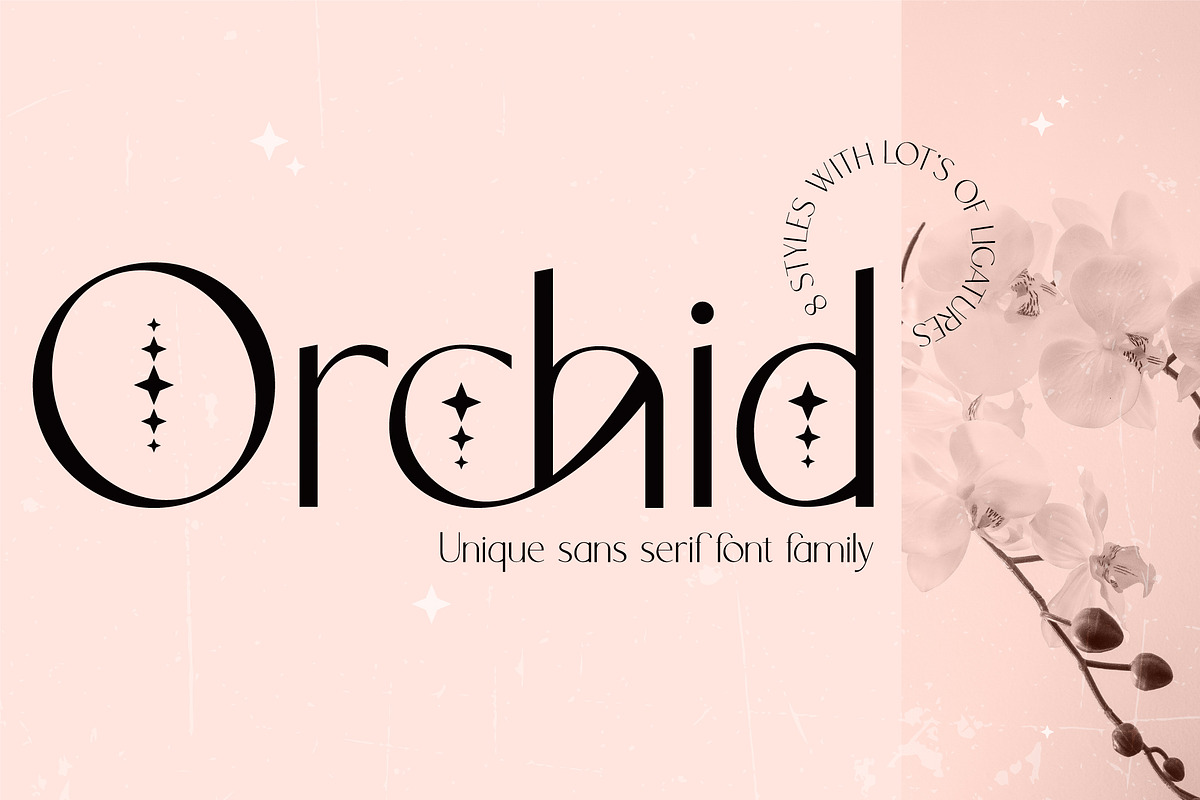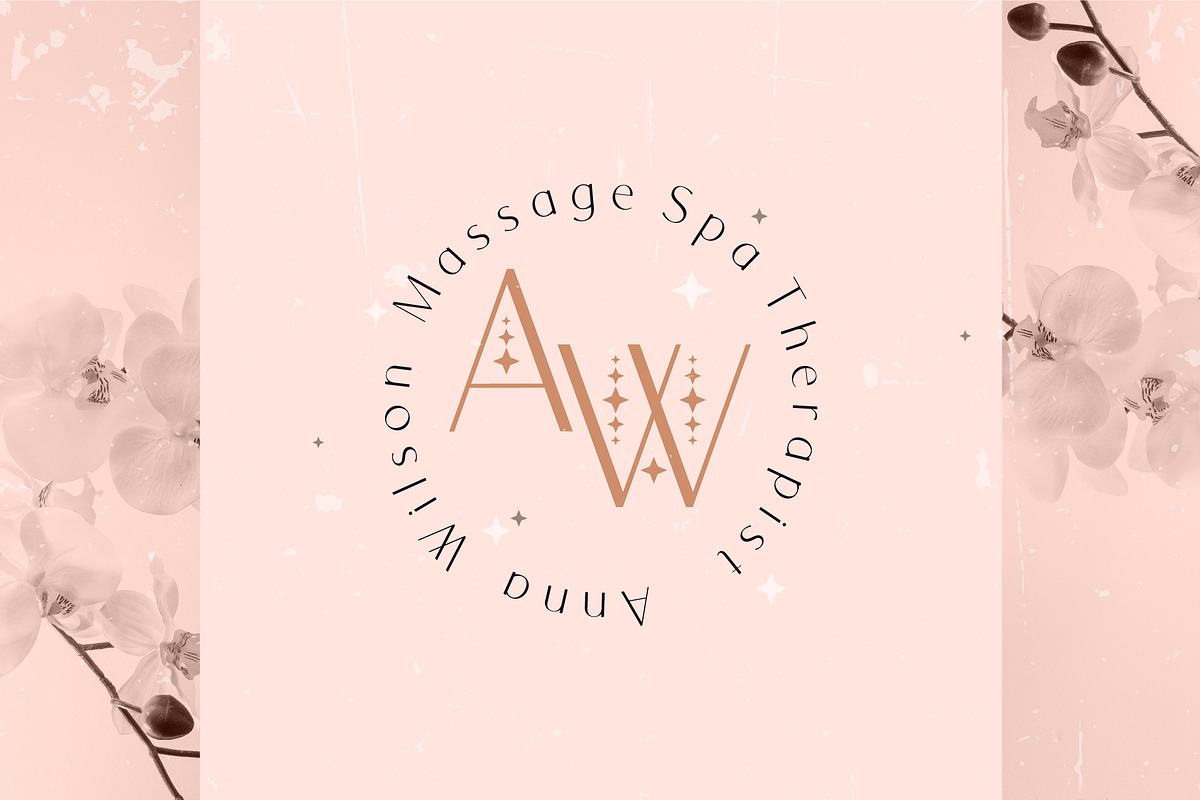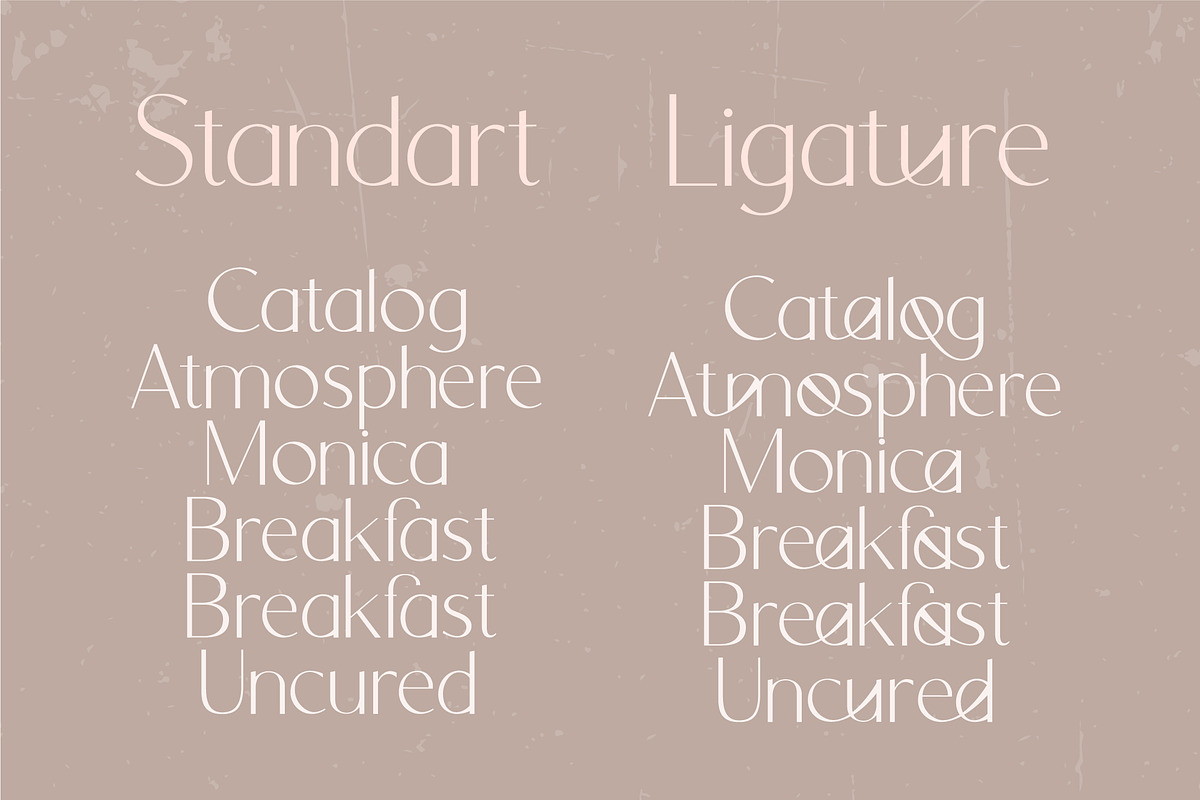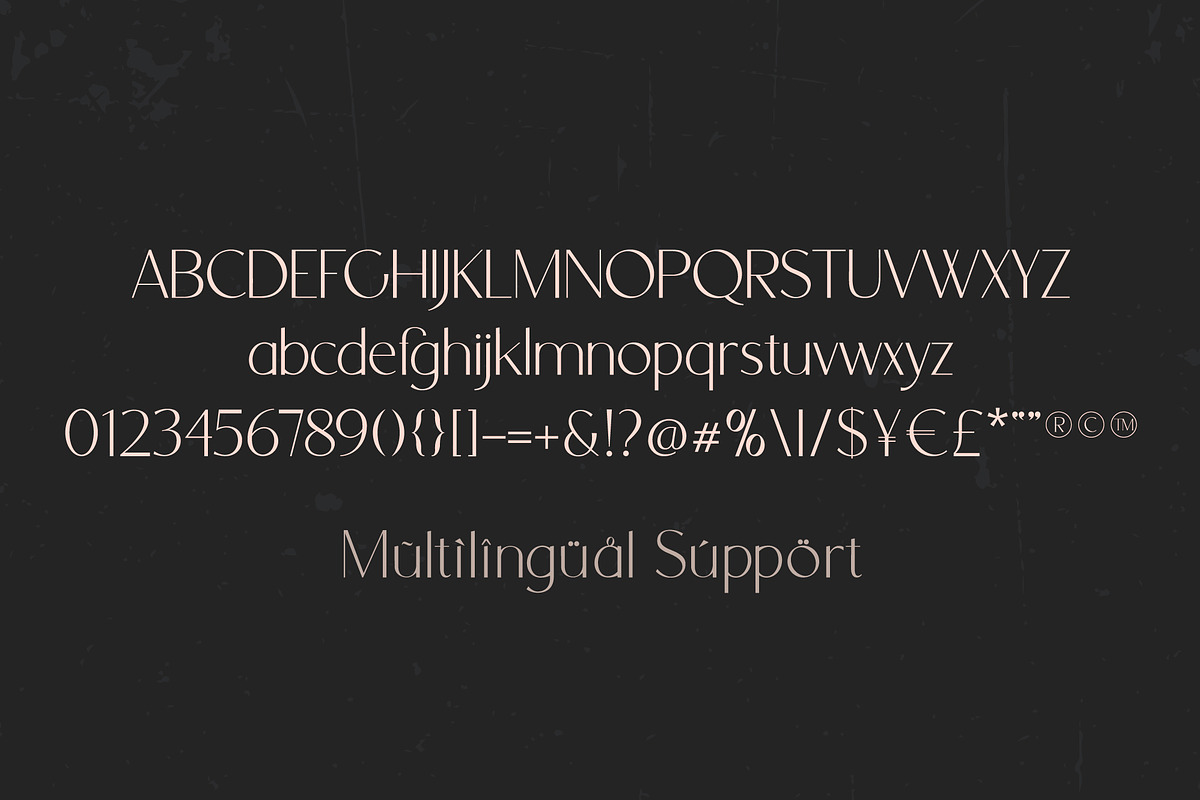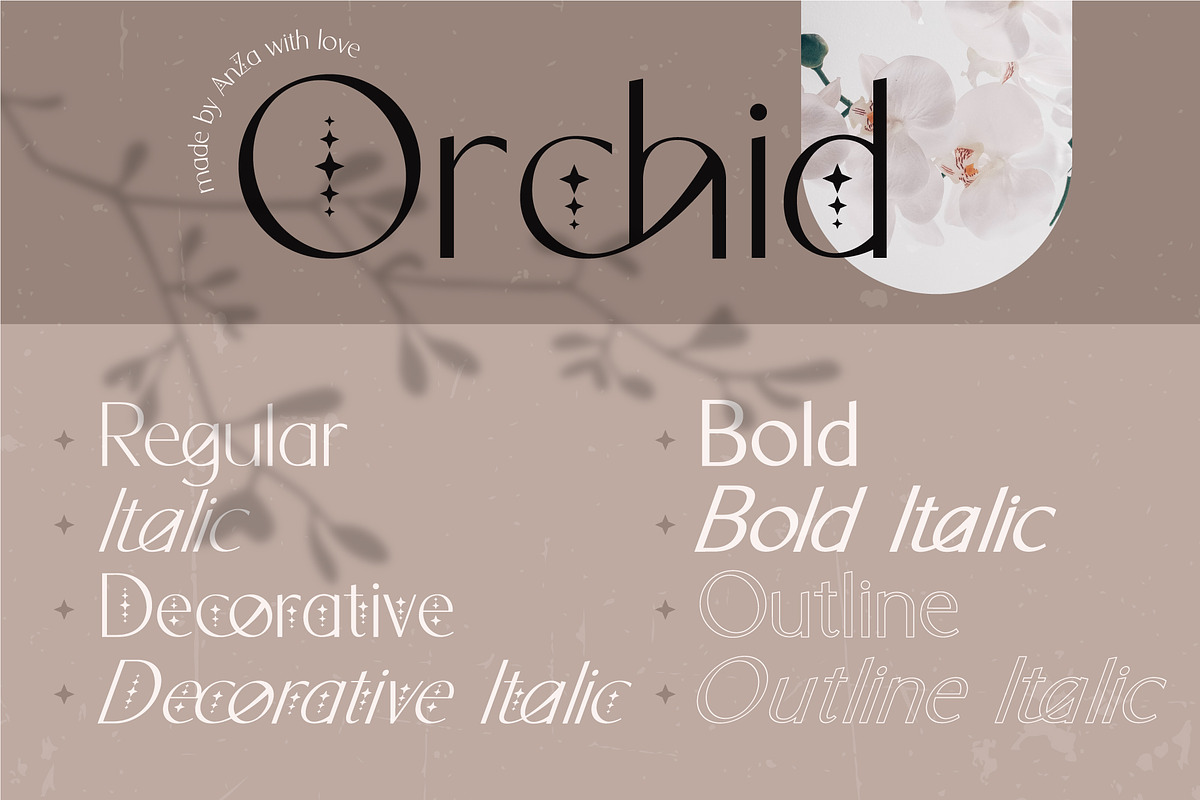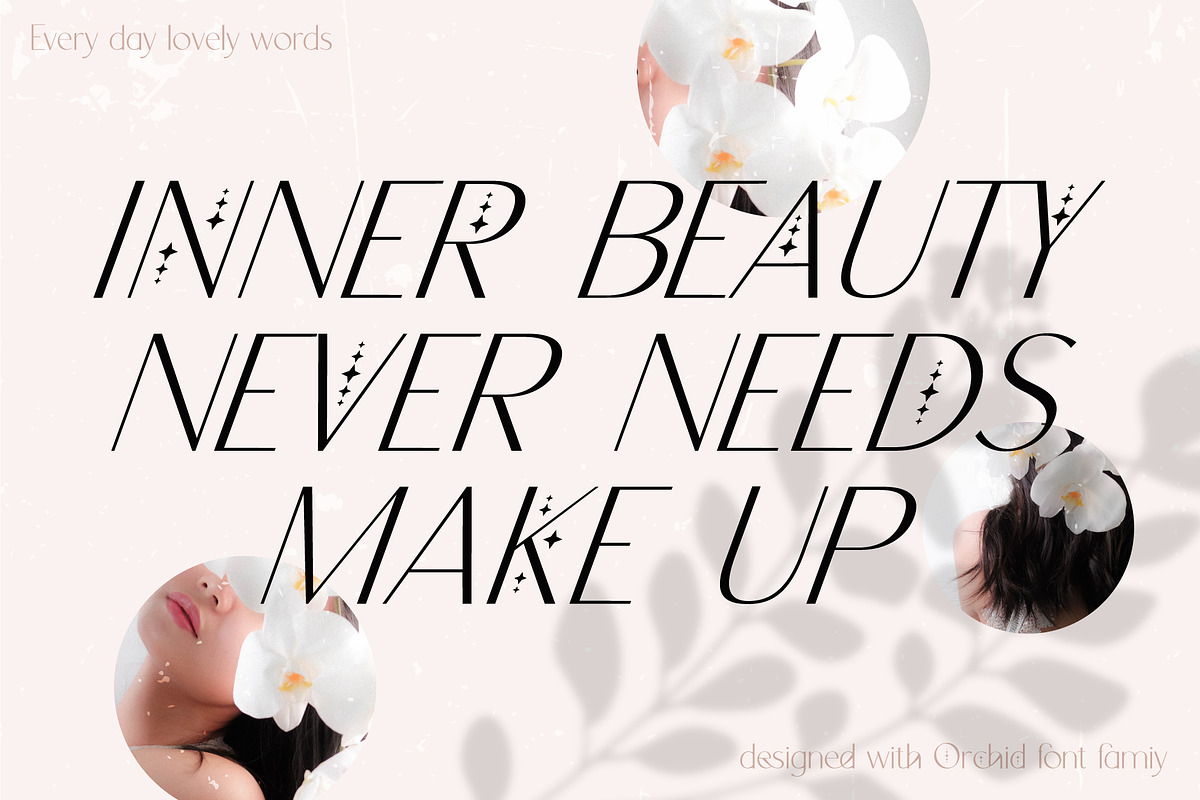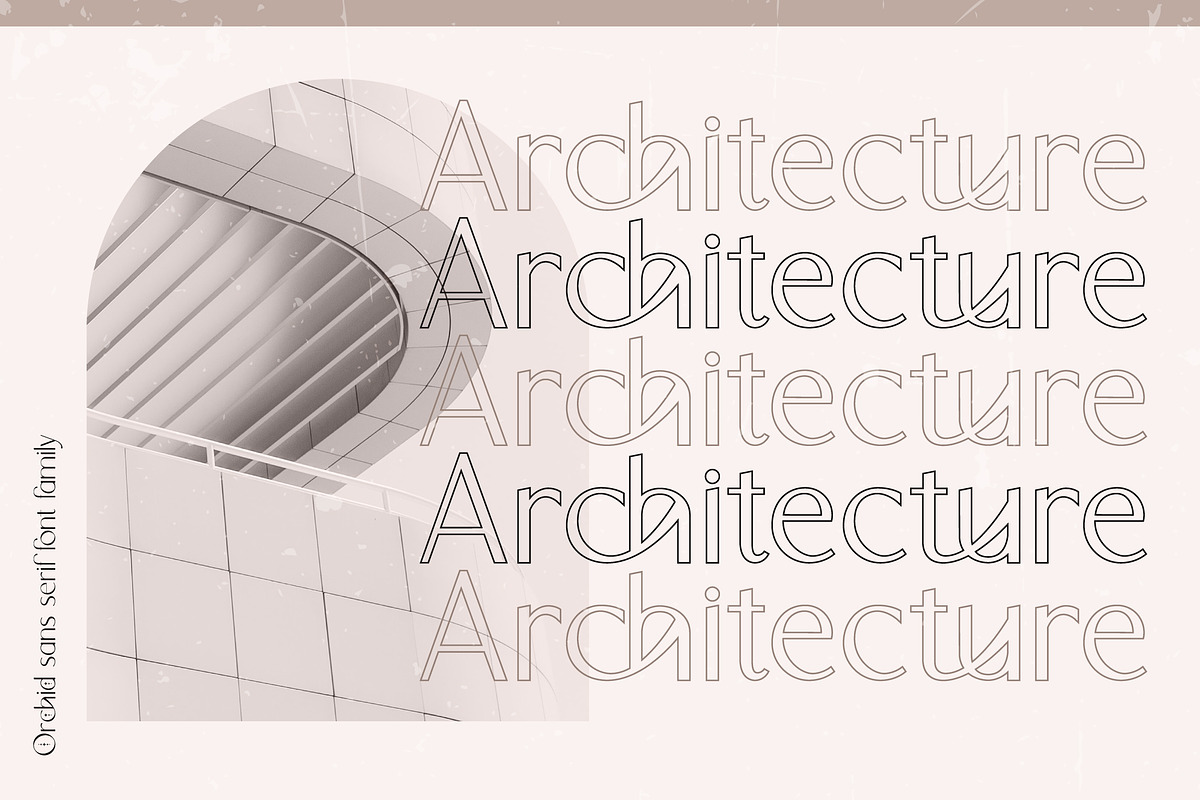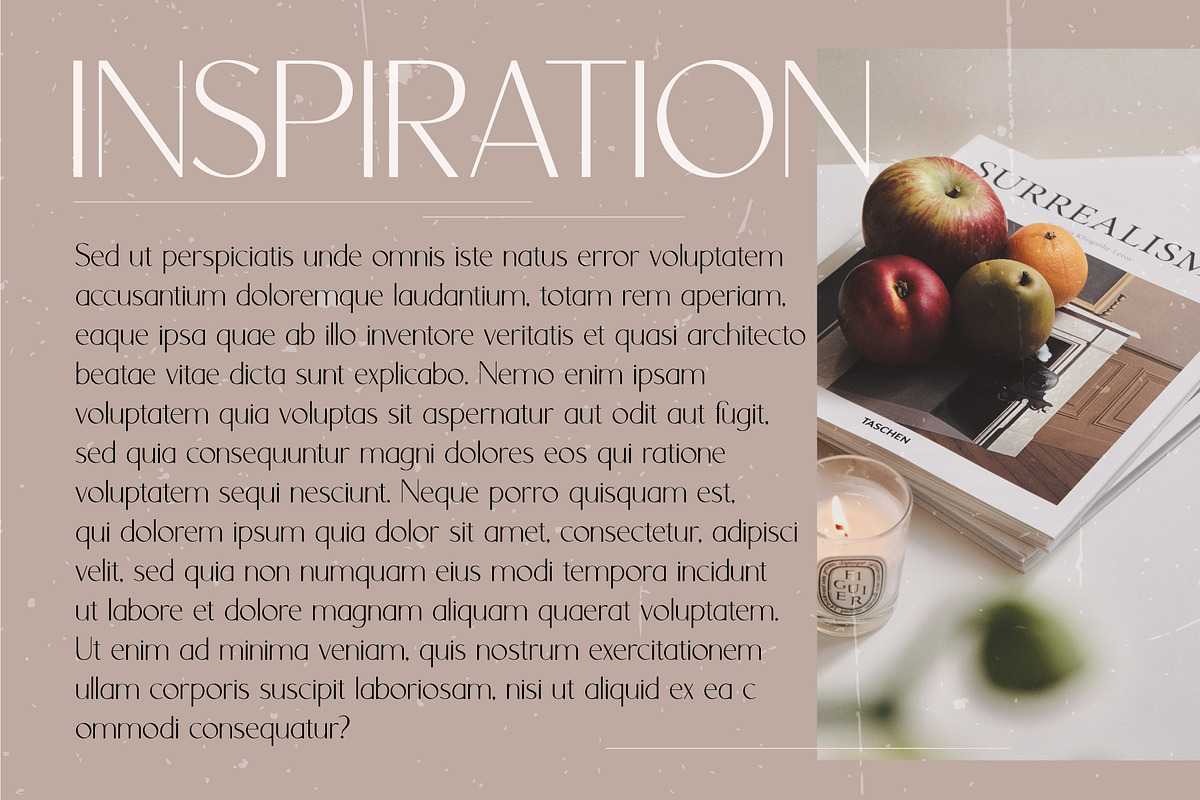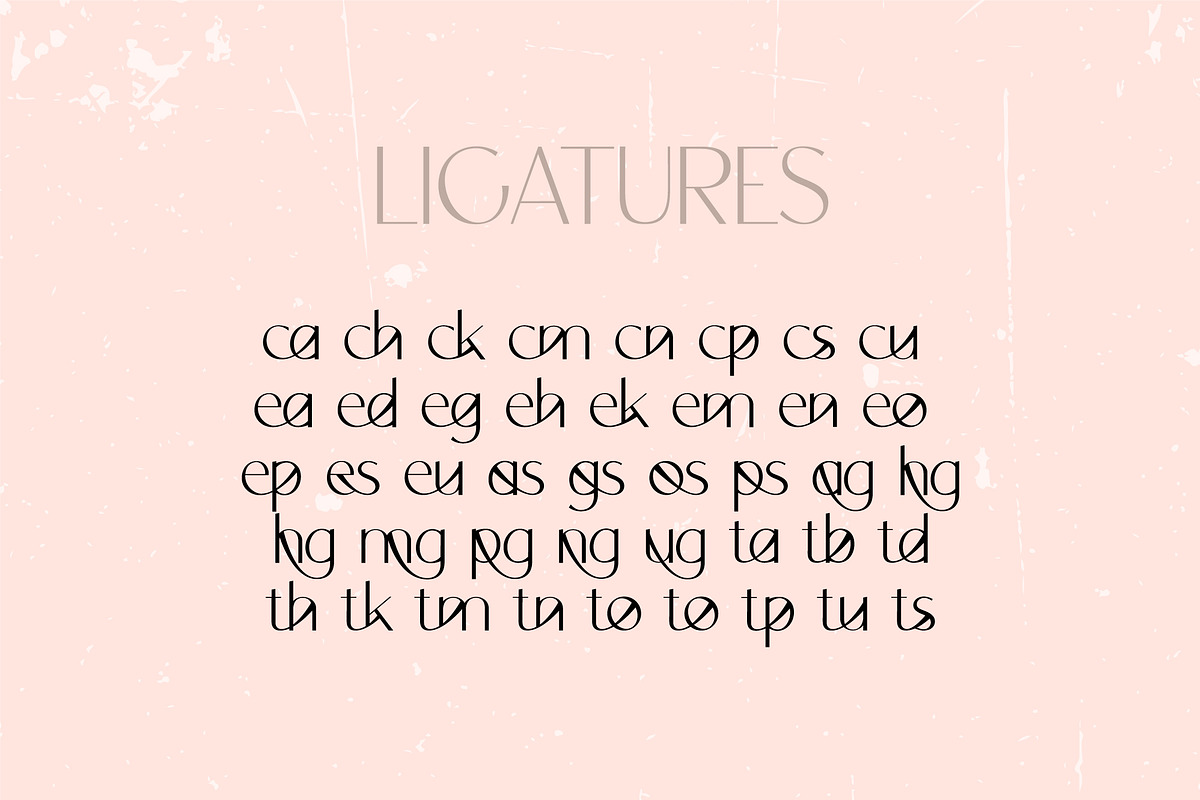
Orchid Sans Serif Font Family
๐๐๐ Introducing Orchid - new memorable and stylish font family with beautiful ligatures.
It's a very versatile font that works great in large and small sizes. Perfect for editorial projects, magazine headers, Logo design, Clothing Branding, product packaging, magazine headers, or simply as a stylish text overlay to any background image.
Orchid hosts 8 different styles:
- Orchid regular font
- Orchid regular italic font
- Orchid decorative font
- Orchid decorative italic font
- Orchid bold font
- Orchid bold italic font
- Orchid outline font
- Orchid outline italic font
Orchid contains a large range of ligature to provide you with more customisation options. Access your OpenType features to access the large selection of alternates to get luxurious typography. All alternates can also be accessed via a Glyphs panel.
Orchid has uppercase and lowercase characters, numbers and punctuations, multilingual support (French, German, Italian, Norwegian, Portuguese, Spanish, Swedish, Swiss German).